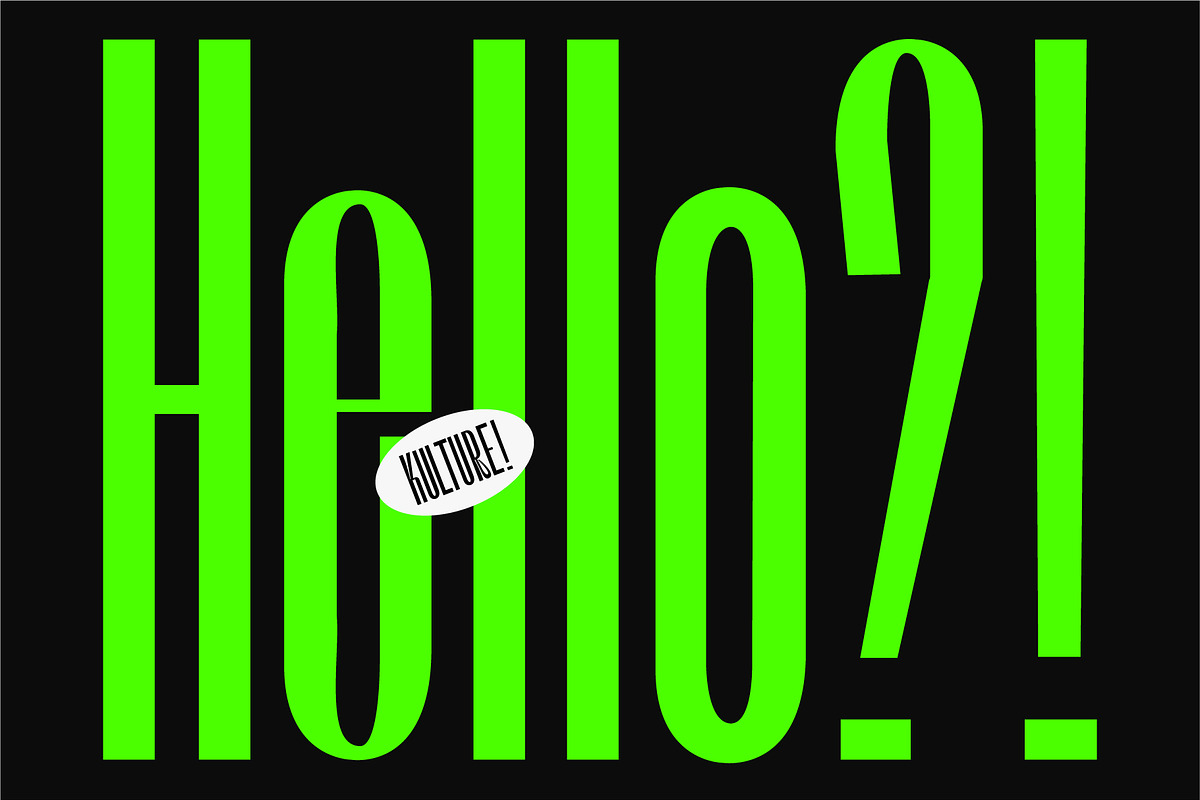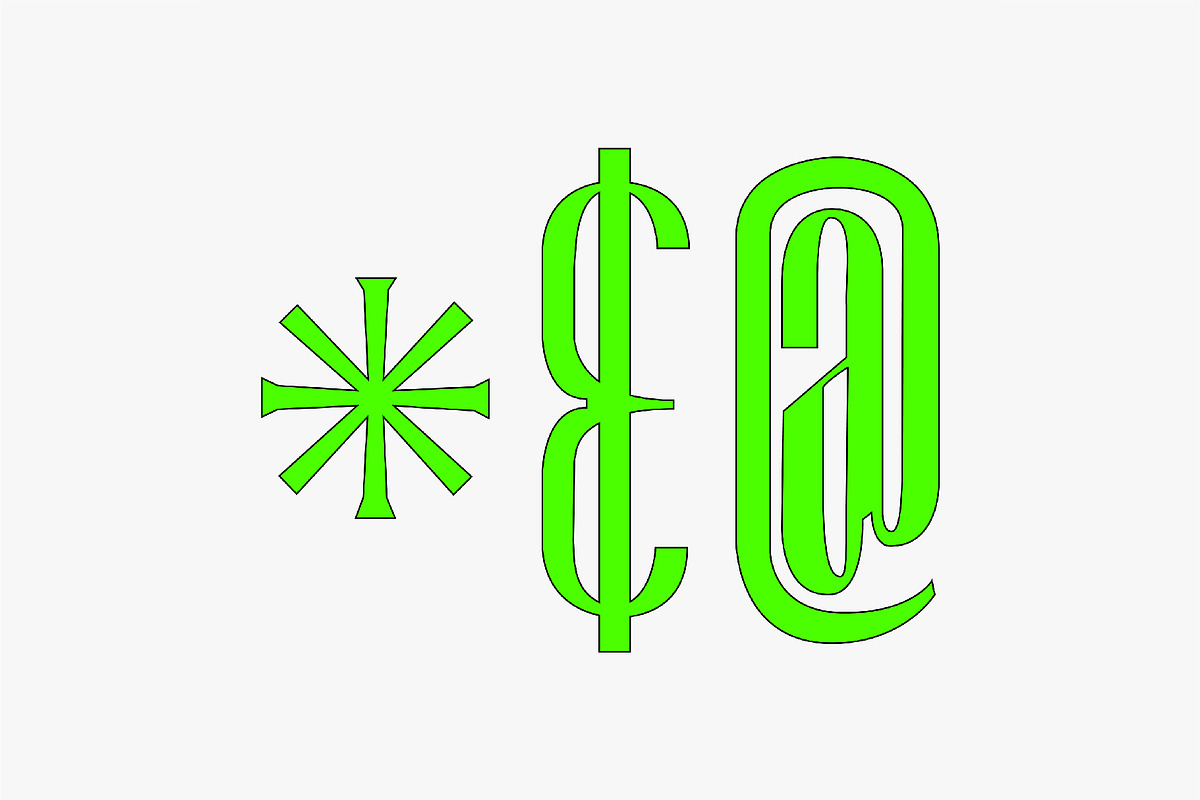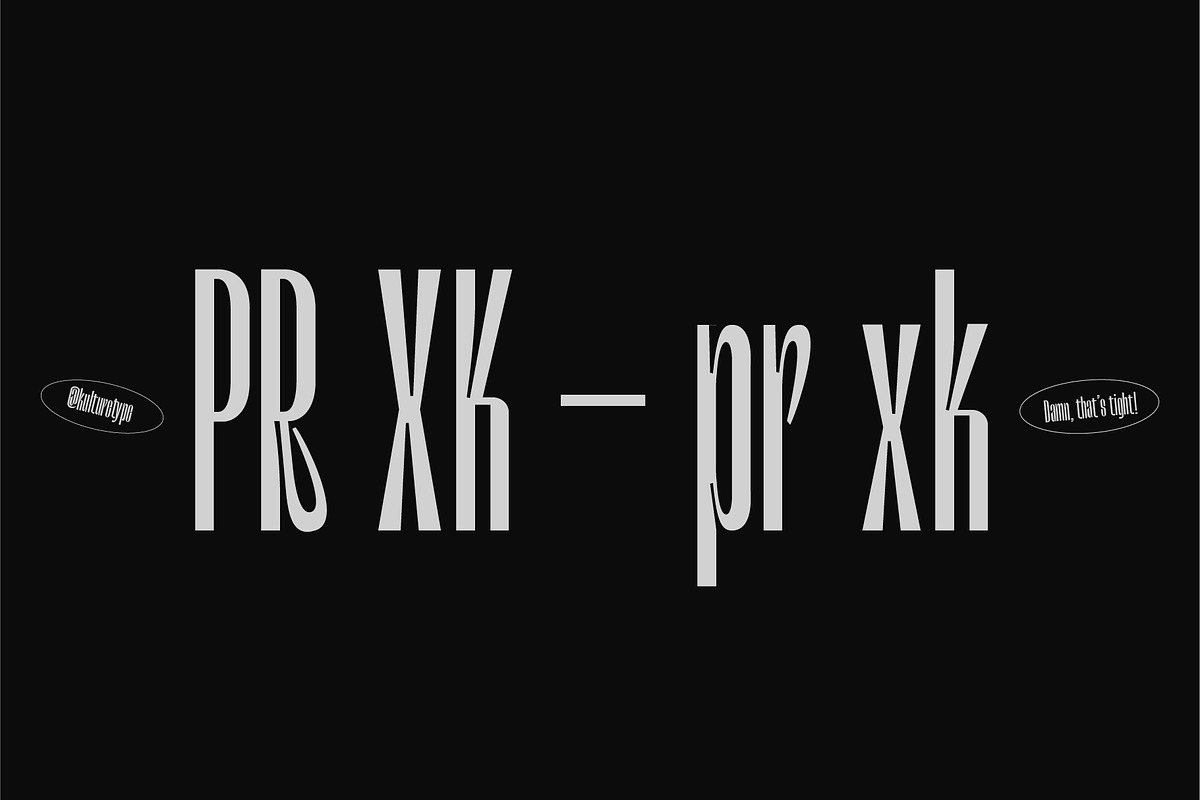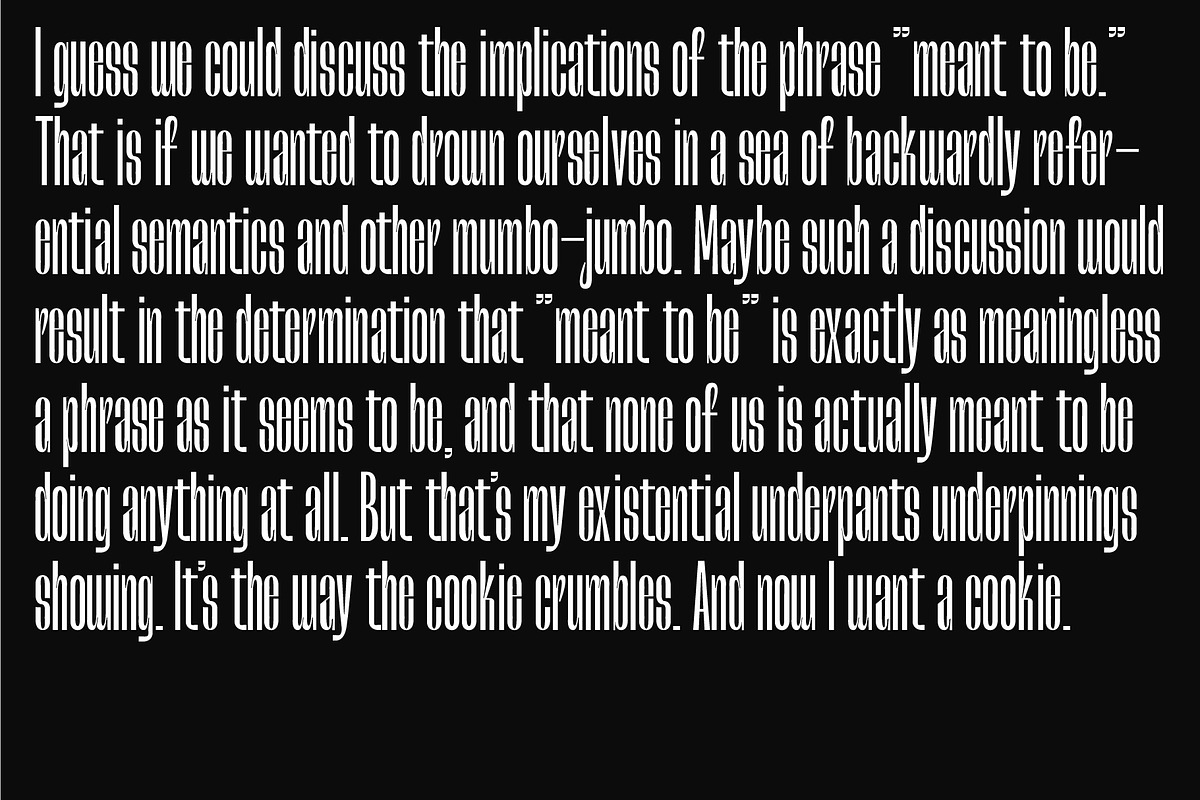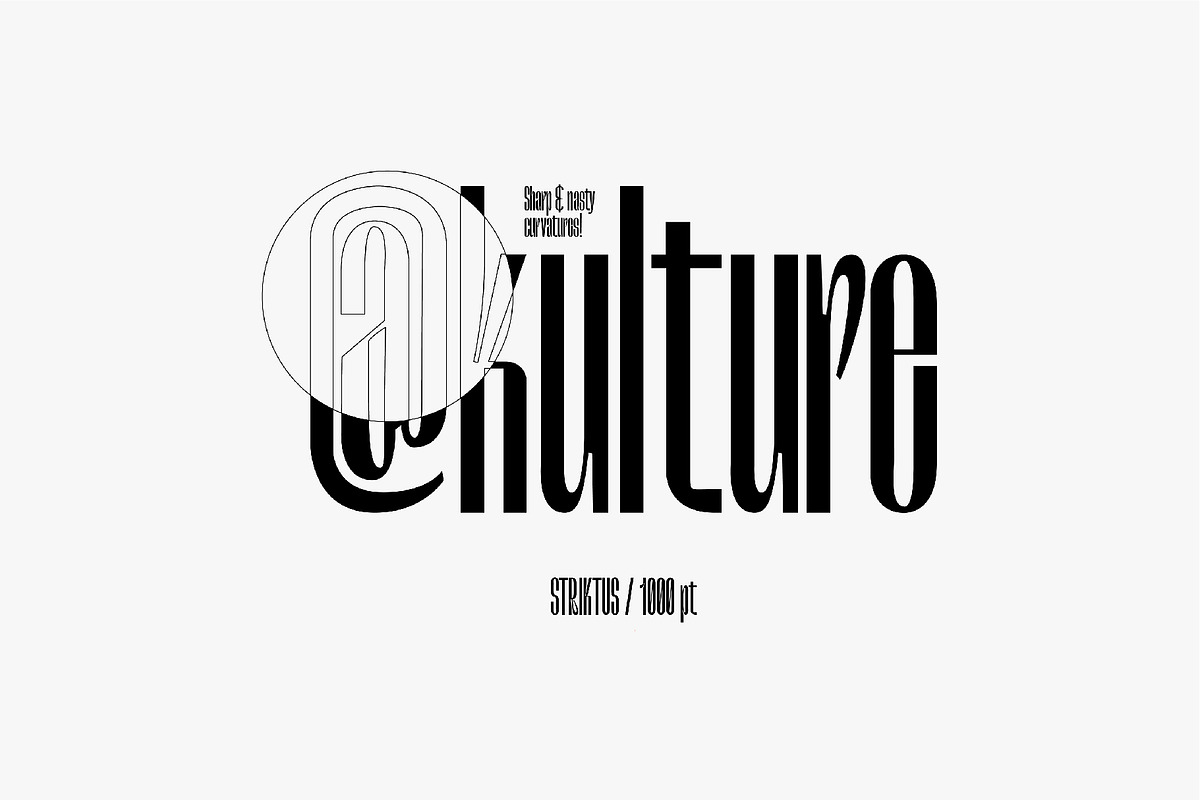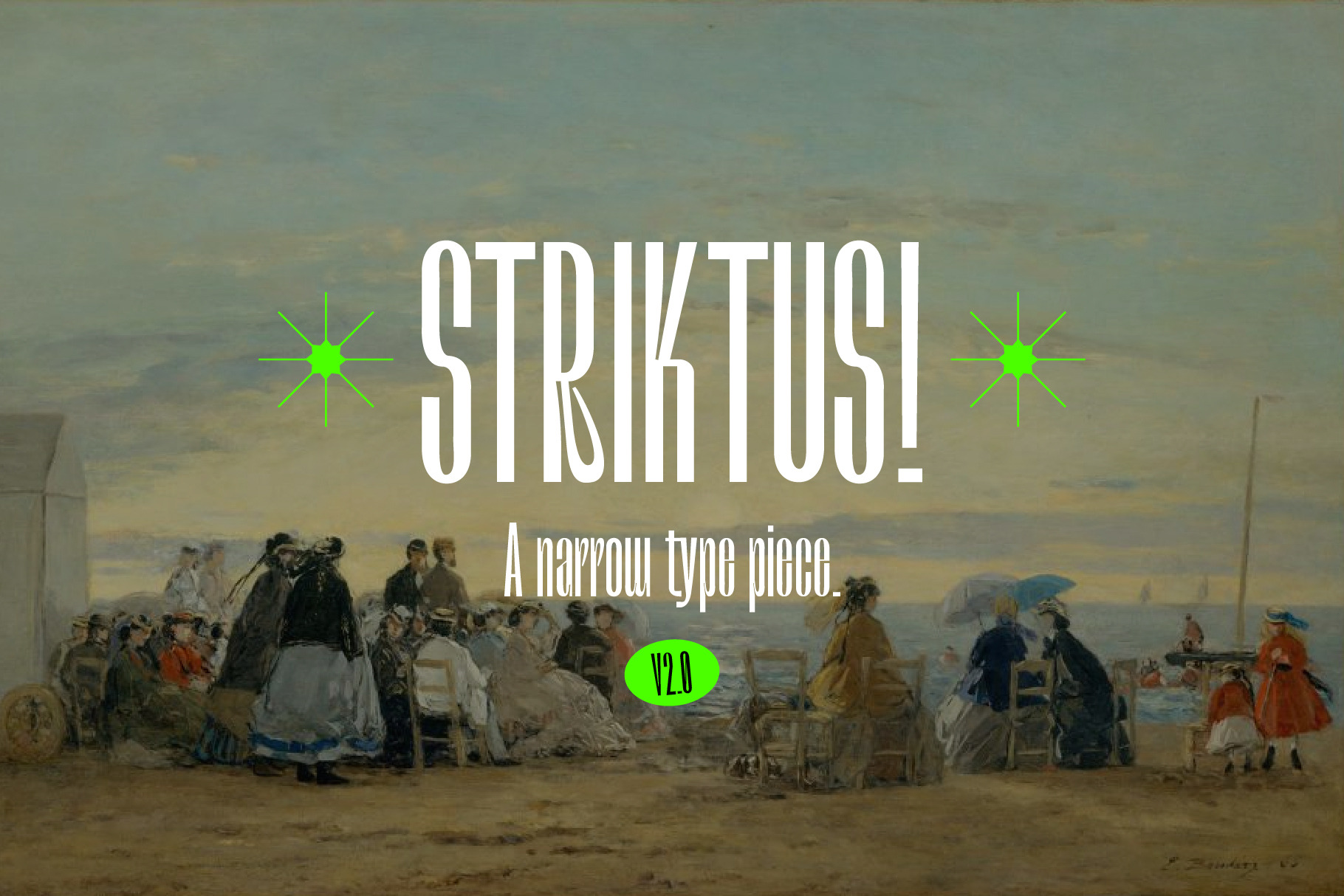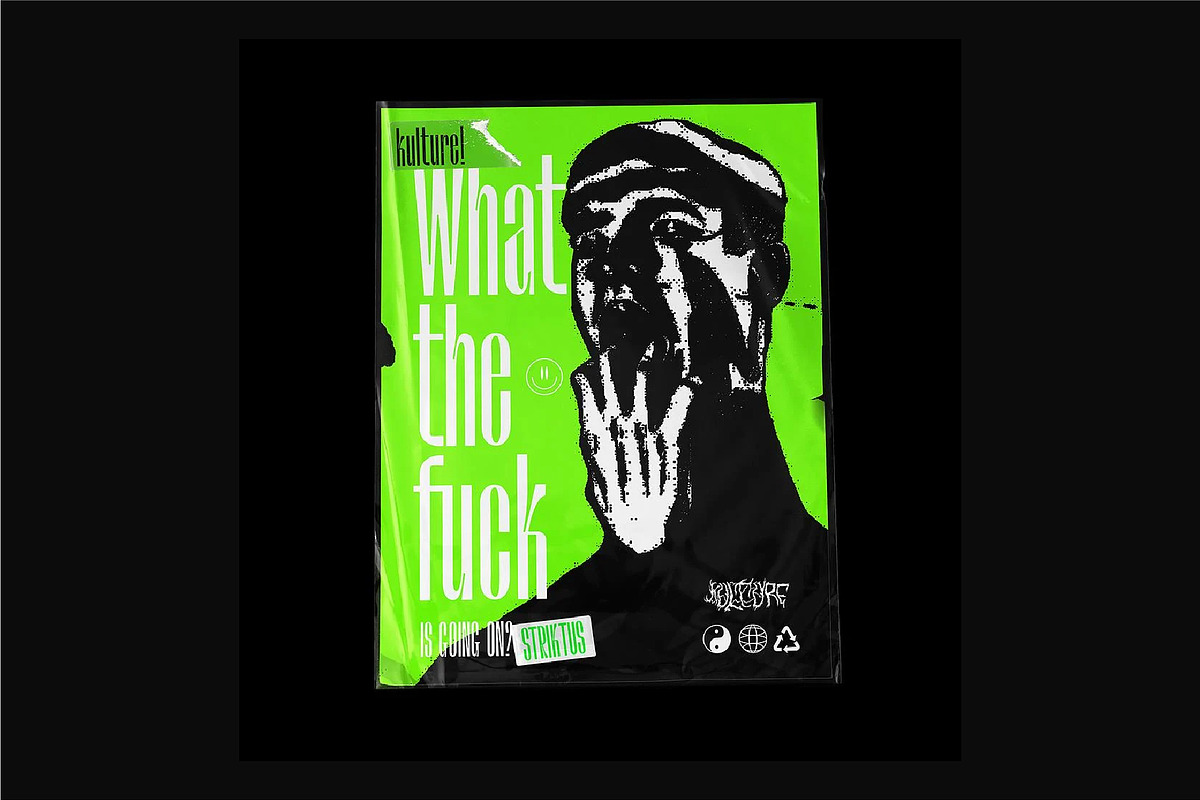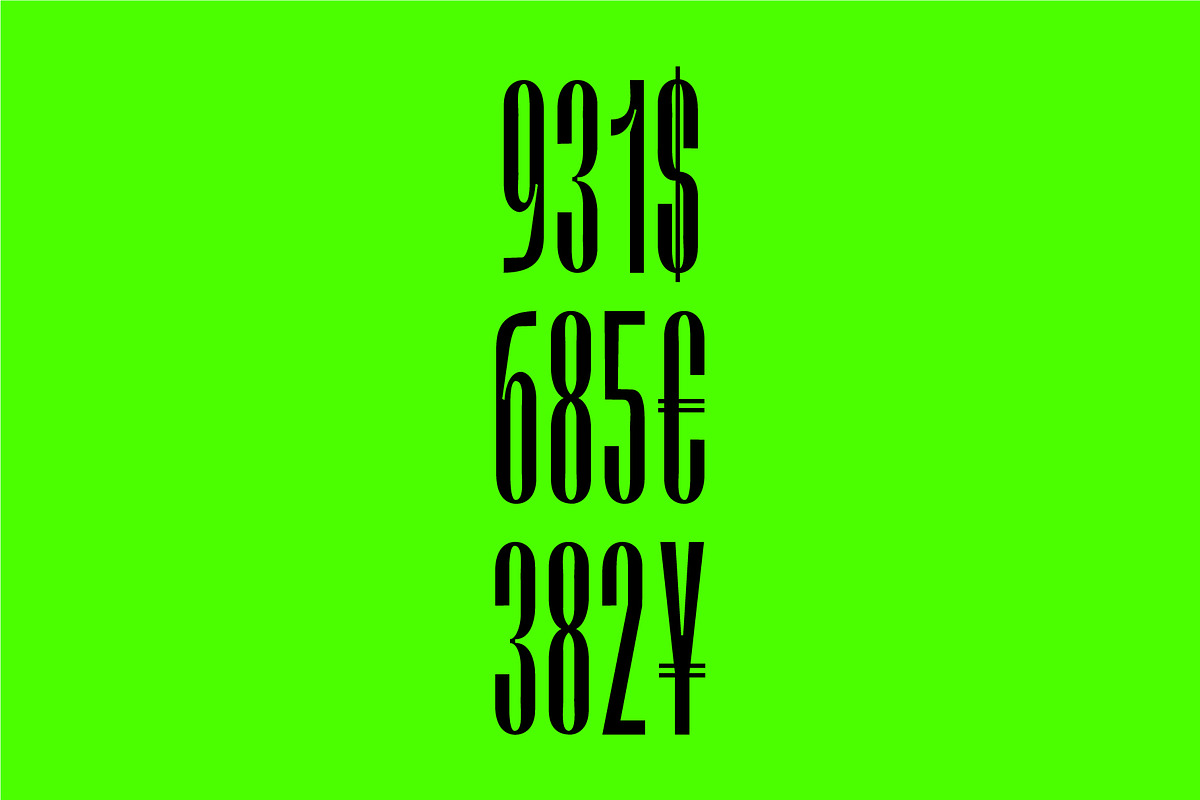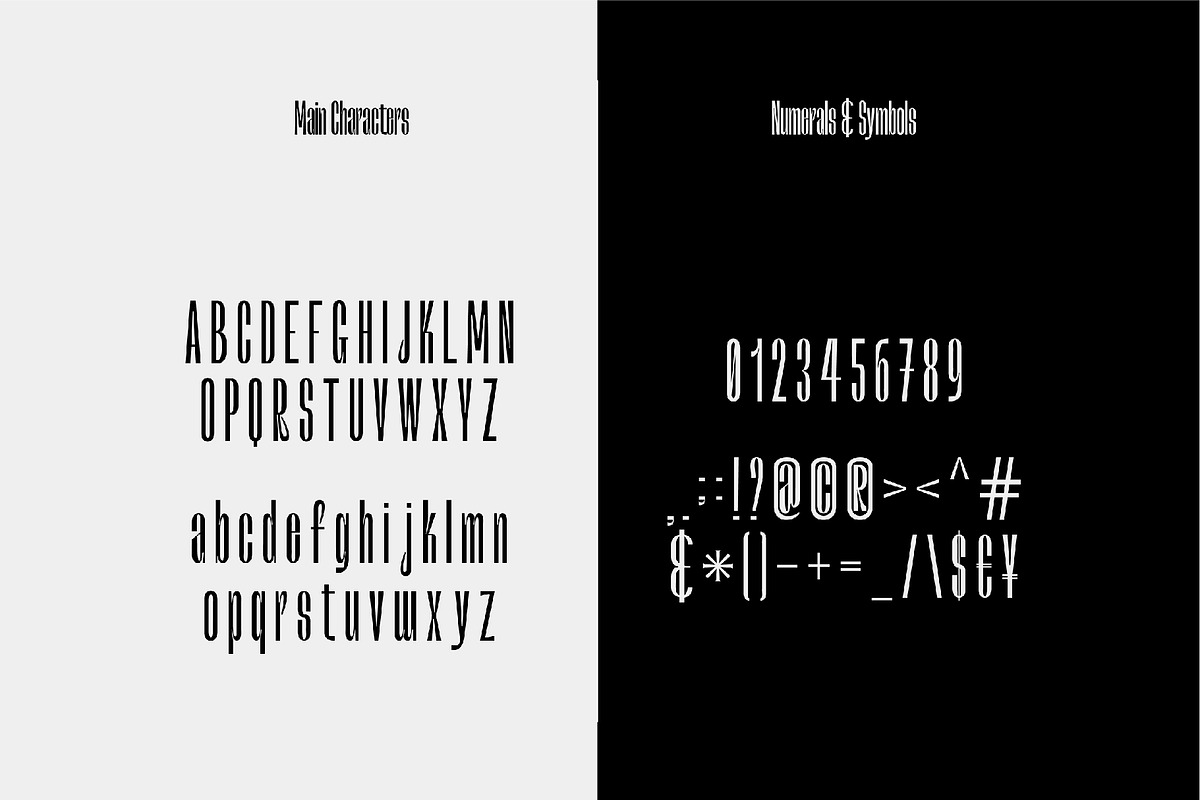
Striktus - Narrow Typeface
STRIKTUS is a narrow & experimental typeface, it has some sharp curves & some mixture in width.
It is available in 1 weight / 1 style. A perfect extra-compressed display type! ☺